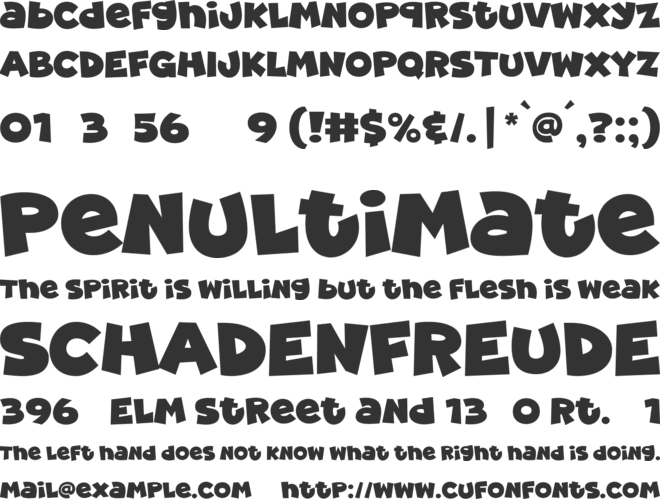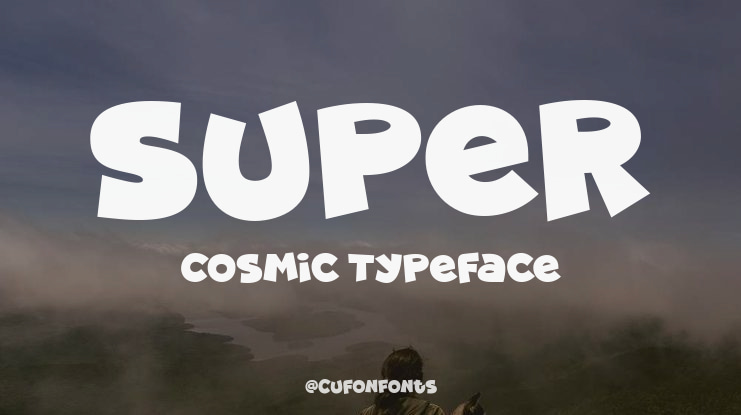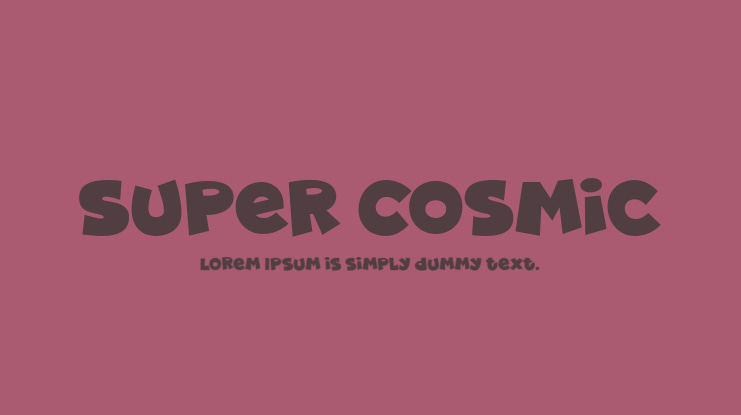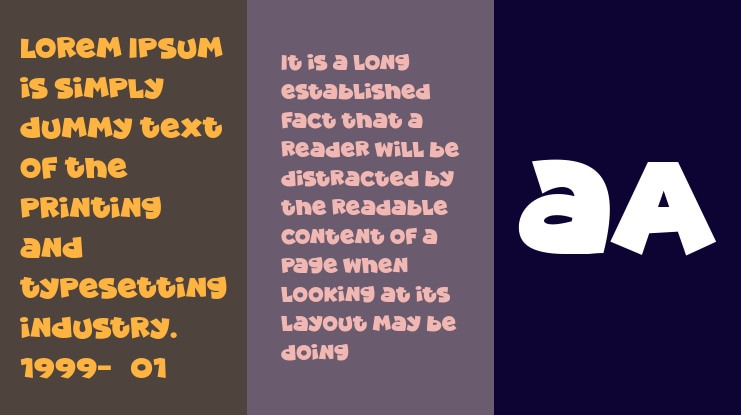
Super Cosmic Font
This font is intended for personal use only. In order to use this font for commercial purposes, you will need to purchase a commercial license. You can obtain a commercial license by visiting https://allsuperfont.com/product/super-cosmic/Forget. Say goodbye to dull fonts and welcome Super Cosmic! This font possesses the qualities of a superhero, with bold lines, cosmic curves, and a touch of sass that can give any text a superpowered appeal. So, don your cape and let your imagination soar with Super Cosmic!